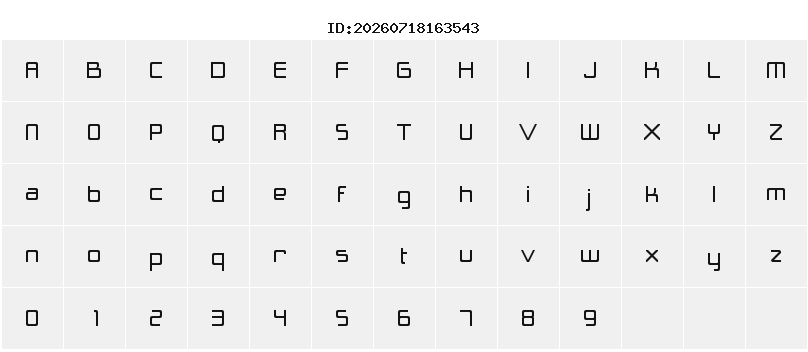
• Font Name: Cynthe
• Designer: heberxavierarroyo
• Description: “Cynthe” was built with FontStruct
Cynthe.ttf is a modern, elegant sans-serif font designed for ultimate readability and visual harmony. Perfect for branding, headlines, web design, and print materials.